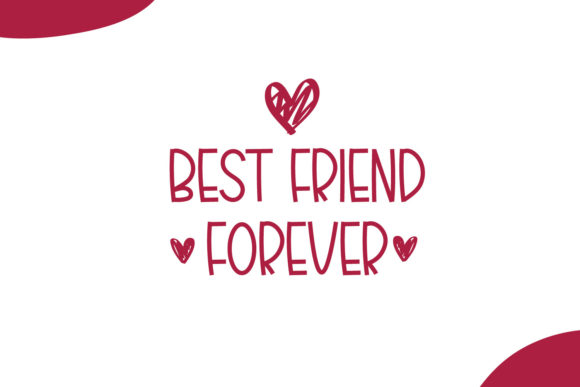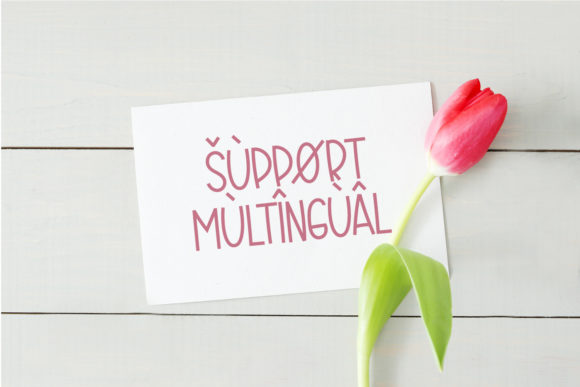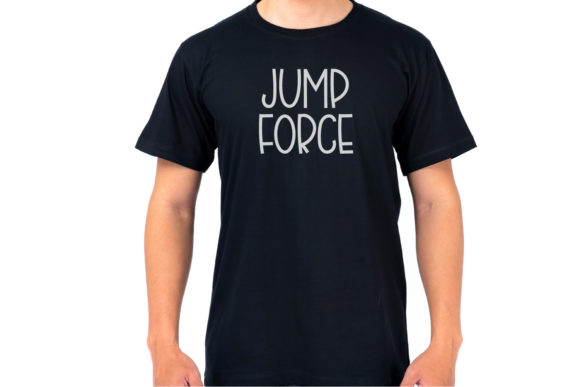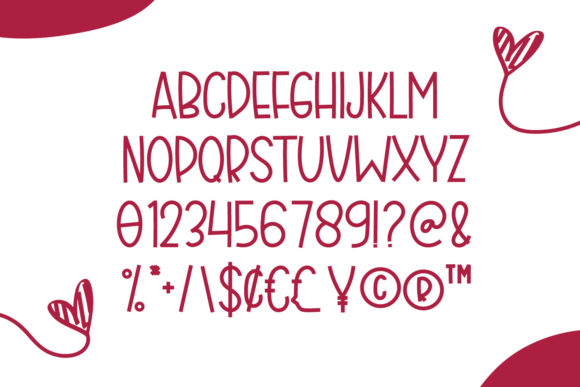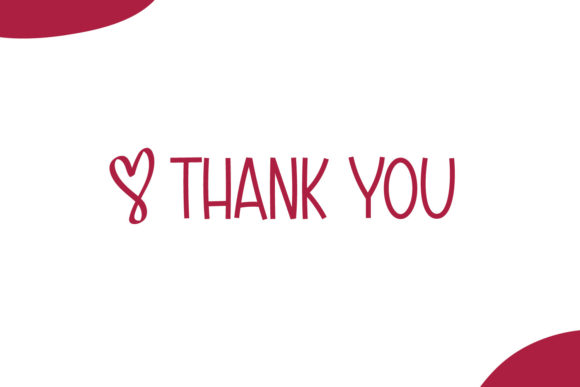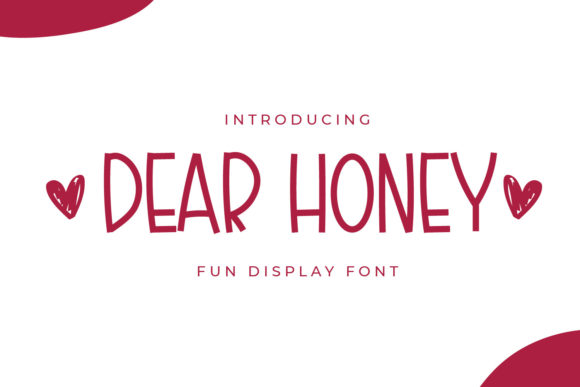
Discover the Charm of Dear Honey Font: A Cool and Casual Display Font
Are you on the hunt for a font that exudes a sense of coolness and casualness? Look no further than the Dear Honey font. This delightful display font is perfect for designers and crafters seeking to add a touch of whimsy and personality to their projects. In this article, we’ll dive into the world of Dear Honey font, exploring its features, uses, and benefits.
What is Dear Honey Font?
Dear Honey is a modern, sans-serif display font that boasts a unique and captivating charm. Its cool and casual demeanor makes it an excellent choice for a wide range of design applications. Whether you’re working on a logo, wedding invitation, or social media graphic, Dear Honey font is sure to make a statement.
Key Features of Dear Honey Font
• Cool and Casual Design: Dear Honey font features a laid-back, modern design that’s perfect for creating eye-catching visuals.
• High Versatility: This font can be used for various purposes, including logos, headings, t-shirts, letterhead, signage, labels, news, posters, badges, and more.
• Ease of Readability: Despite its casual nature, Dear Honey font remains highly readable, even at smaller font sizes.
• Unique Character Set: The font comes with a range of characters, including uppercase and lowercase letters, numbers, and punctuation marks.
Uses of Dear Honey Font
Dear Honey font is an incredibly versatile typeface that can be used in a multitude of design projects. Here are some ideas to get you started:
• Logos and Branding: Create a memorable logo for your business or personal brand with Dear Honey font.
• Wedding Invitations: Add a touch of whimsy and romance to your wedding invitations with this beautiful font.
• Social Media Graphics: Use Dear Honey font to create engaging social media graphics, including Facebook posts, Instagram stories, and Twitter headers.
• T-Shirts and Merchandise: Design eye-catching t-shirts, hoodies, and other merchandise with Dear Honey font.
• Signage and Labels: Use this font for signage, labels, and other display materials that require a clear, easy-to-read typeface.
Benefits of Using Dear Honey Font
So, why choose Dear Honey font for your design projects? Here are some benefits to consider:
• Unique Visual Identity: Dear Honey font helps you create a distinctive visual identity that sets you apart from others.
• Easy to Read: The font’s clear and simple design ensures that your message is conveyed effectively, even at smaller font sizes.
• Time-Saving: With Dear Honey font, you can create professional-looking designs in no time, saving you time and effort.
Tips for Using Dear Honey Font
To get the most out of Dear Honey font, follow these tips:
• Experiment with Font Sizes: Play around with different font sizes to find the perfect balance for your design.
• Pair with Other Fonts: Combine Dear Honey font with other typefaces to create a unique and visually appealing design.
• Use in Combination with Images: Pair the font with high-quality images to create stunning visuals.